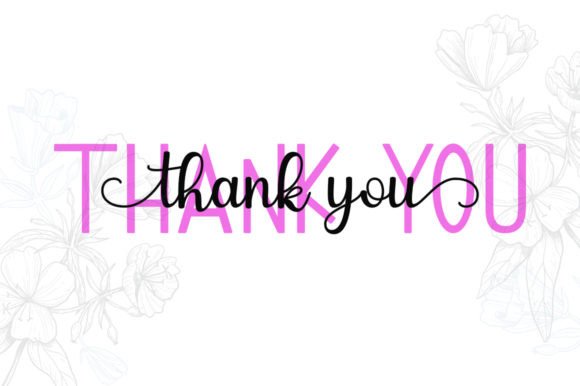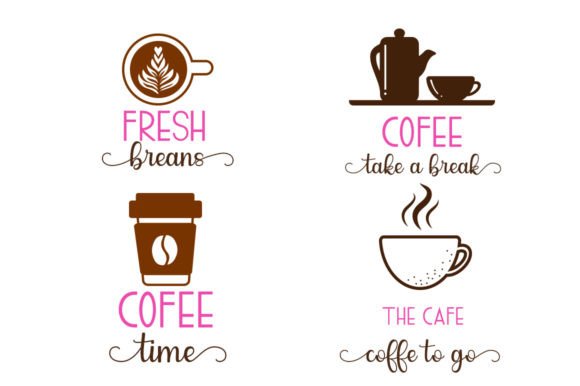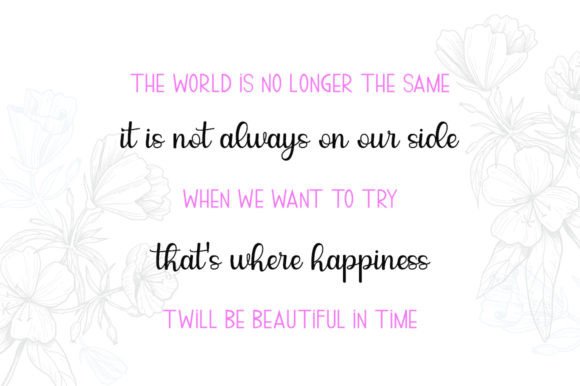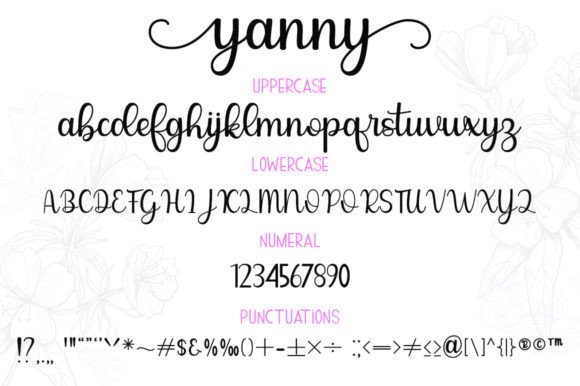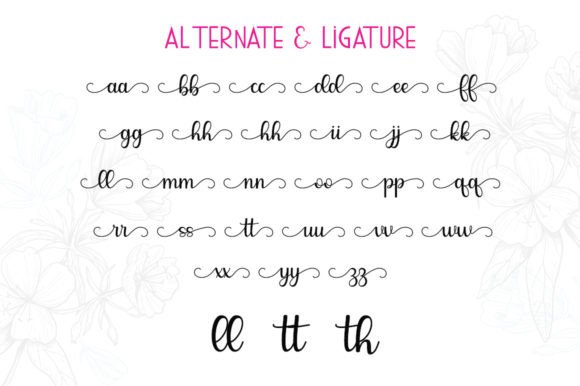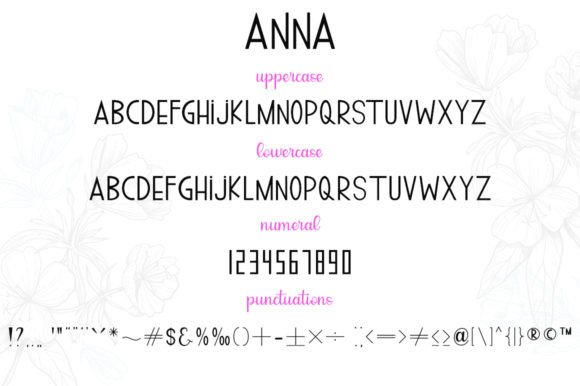
When Words Become Art
As you sit at your desk, staring at a blank page, the words start flowing. Your imagination takes over, and you envision a beautiful, whimsical design that captures the essence of your message. But sometimes, the right words just need the right font to truly shine. That’s where the Anna Yanny Font comes in – a lovely duo font that adds a touch of warmth and romance to any project.
Anna Yanny Font is more than just a font – it’s a tool that helps designers bring their ideas to life. With its sweet and lovely sans serif and script combination, this font is perfect for creating works of art that touch hearts. And with its PUA encoding, accessing all the glyphs and swashes is a breeze, making it a valuable addition to any designer’s toolkit.
Anna Yanny Font Key Features
- Font Family: Anna Yanny is a sans-serif font.
- Unique Characteristics: Anna Yanny features a clean and modern design, with a focus on legibility and readability, making it suitable for body text and titles.
- Font Weight: Anna Yanny is available in multiple weights, including light, regular, medium, bold, and extra bold.
- Language Support: The font supports a wide range of languages, including Latin-based languages, Cyrillic, and Greek.
Anna Yanny Font Review
I recently had the chance to work with the Anna Yanny font, and I must say it’s a delightful addition to any design project. ✨
The font’s most notable feature is its unique blend of modern and vintage elements, which gives it a distinctive look that’s both eye-catching and elegant. ✨
Here are some of the things I love about the Anna Yanny font:
- Its versatility in both digital and print formats.
- The subtle flair and personality it adds to any text.
- The wide range of font sizes and weights that make it suitable for various design applications.
- Its clean and readable design, making it perfect for body text.
However, I did encounter a few limitations:
- ⚠️ The font’s ligature support is not as robust as I’d like, which can sometimes lead to awkward spacing issues.
- ⚠️ The font’s italic style, while elegant, can sometimes be difficult to read in smaller font sizes.
Overall, I’m impressed with the Anna Yanny font. It’s a great choice for designers looking for a unique and stylish font that’s both elegant and versatile. With a little extra attention to detail and some creative workarounds, I’m confident that the Anna Yanny font can elevate any design project to the next level.
Tips for Getting the Most Out of the Anna Yanny Font
To get the most out of the Anna Yanny Font, try the following tips:
- Use the font in bold or italic styles to add emphasis to your text.
- Combine the Anna Yanny Font with other fonts to create a unique and visually appealing design.
- Experiment with different font sizes and colors to create a cohesive look.
Common Use Cases for the Anna Yanny Font
The Anna Yanny Font is commonly used for
Alternatives to Anna Yanny Font
Montserrat is a sans-serif font designed by Julieta Ulanovsky. It is a modern, geometric font perfect for digital use. Montserrat is ideal for use in headings, titles, and body text where a clean and minimalist look is desired. It is a good alternative to Anna Yanny Font as it offers a similar level of legibility and modern feel.
Lato is a sans-serif font designed by Łukasz Dziedzic. It is a highly legible font with a clean and modern design. Lato is suitable for use in a variety of contexts, including digital and print materials. It is a good alternative to Anna Yanny Font as it offers a similar level of sophistication and elegance.